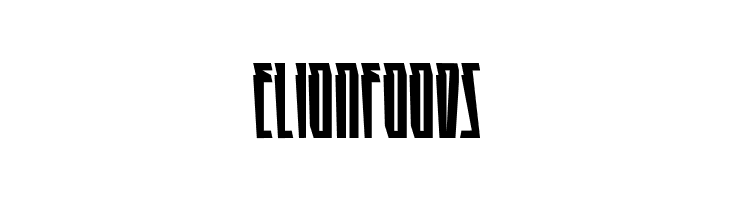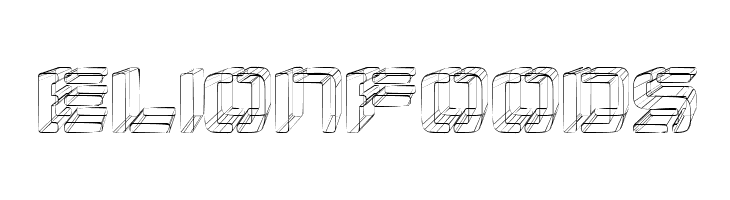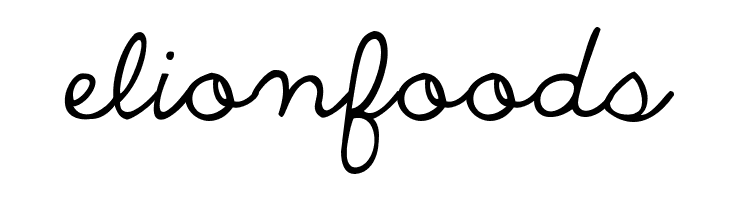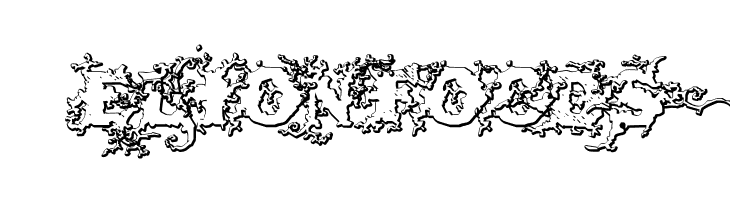
A playful, casual handwritten font with a natural, personal touch.
A tall, narrow, and geometric font with a modern, architectural style.
A sketch-style, three-dimensional font with geometric and architectural elements.
A serif font with architectural pediment designs, exuding classical elegance.
A playful, flowing script font with a natural handwritten style.
An intricate, nature-inspired decorative font with vine-like embellishments.
A rugged, textured font with a hand-carved, organic appearance.